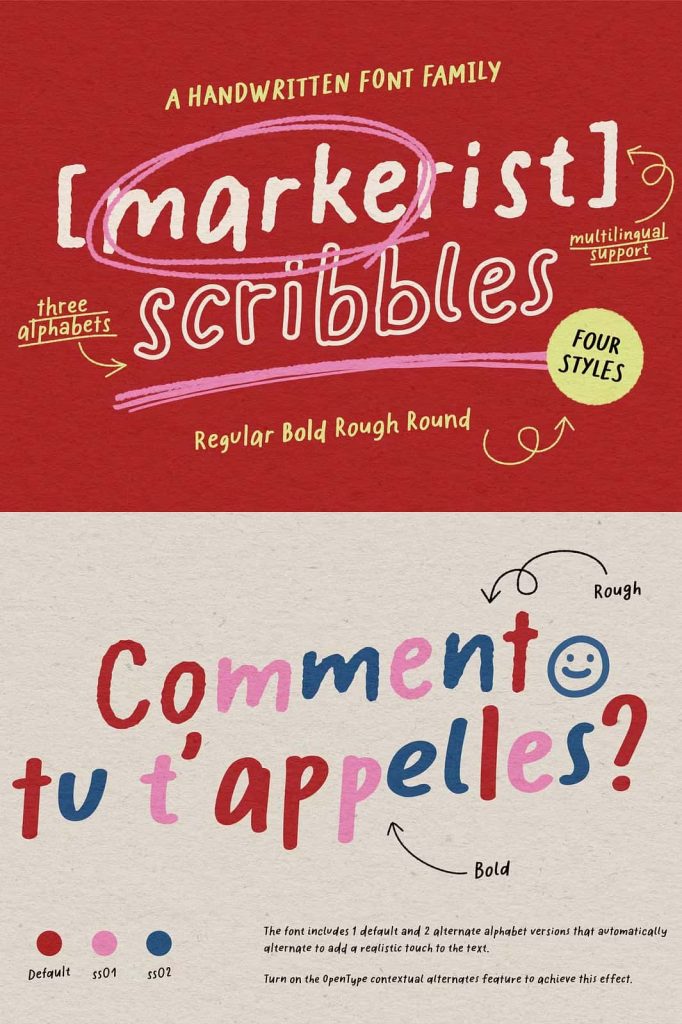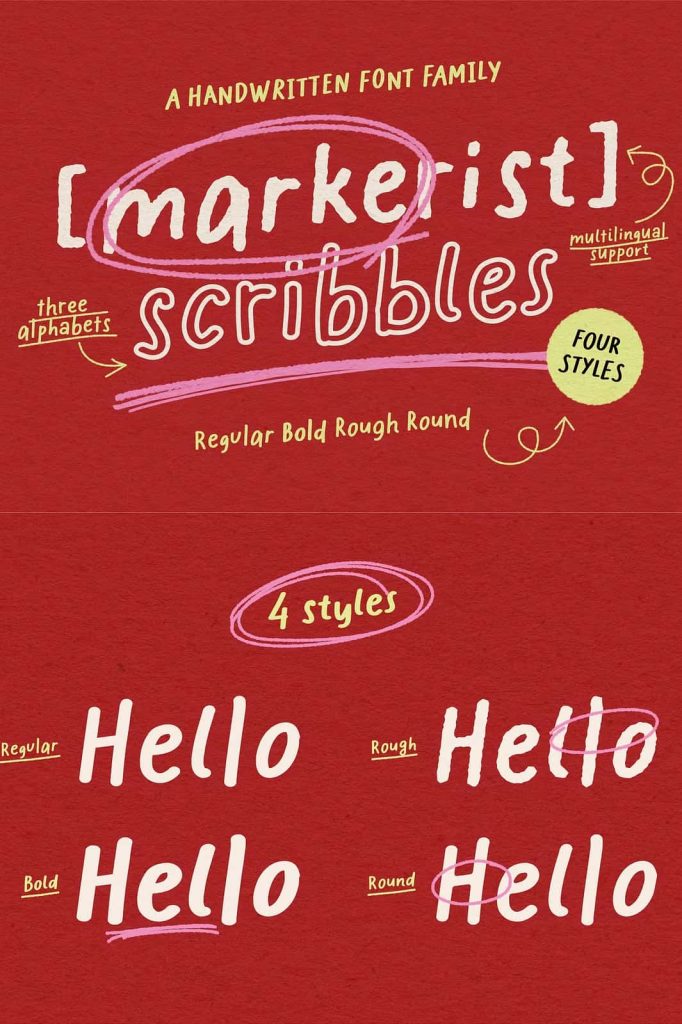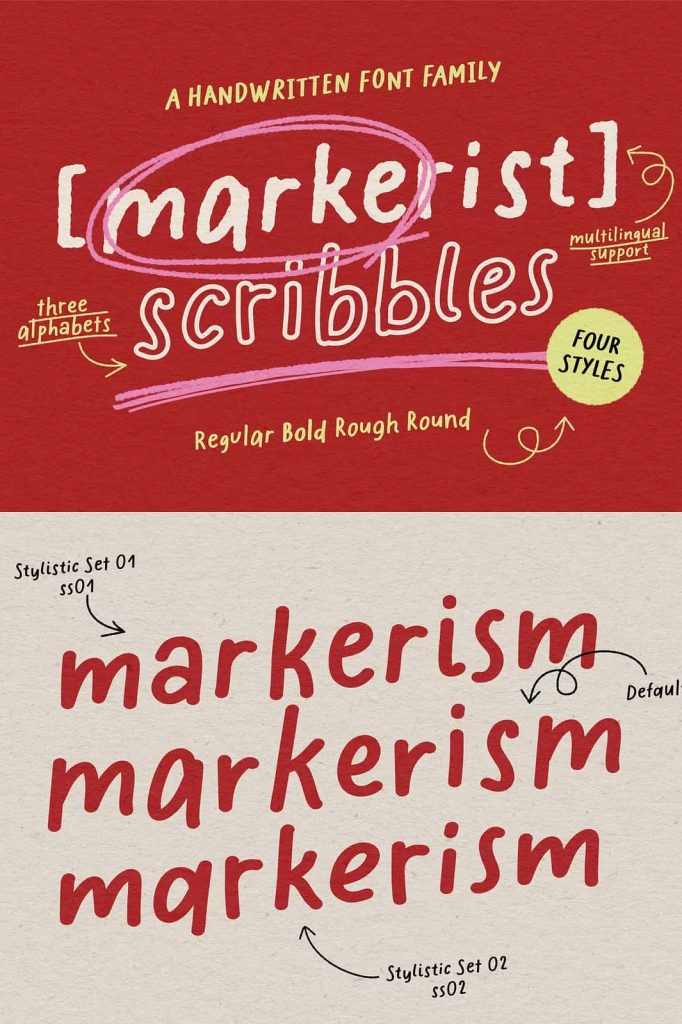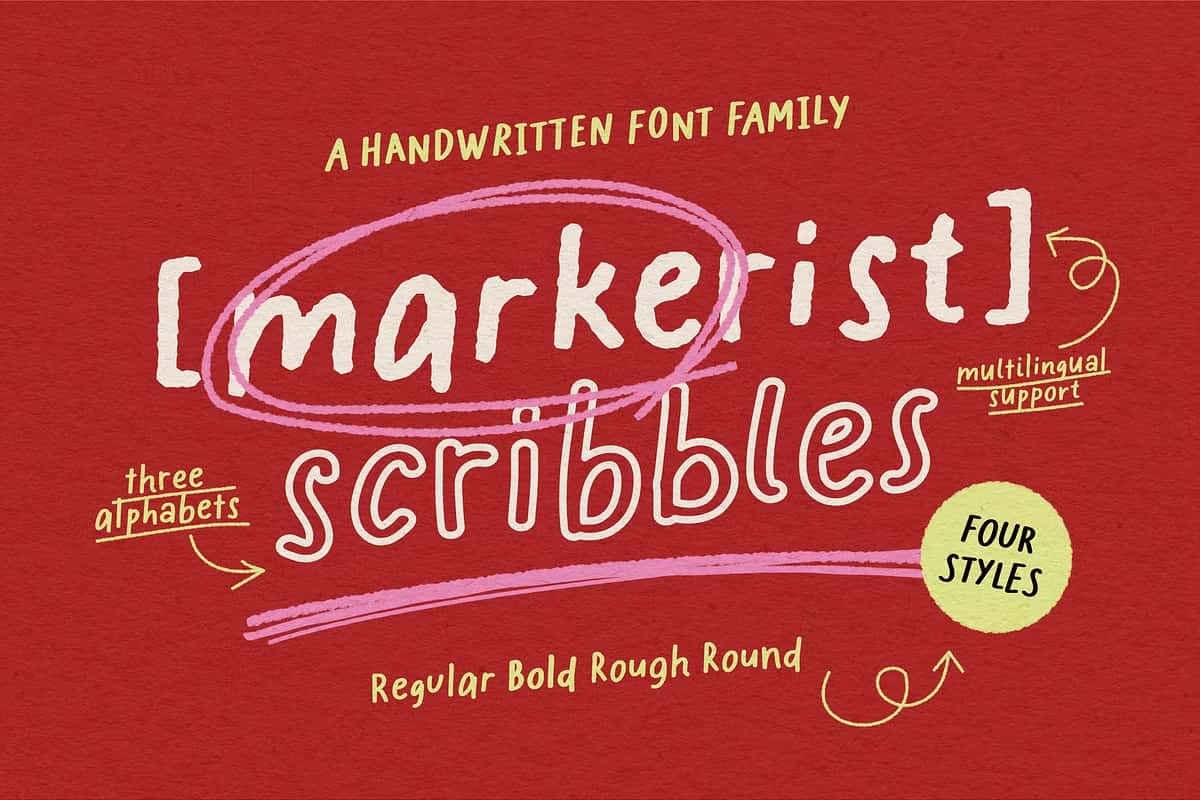
Markerist is a maker-style handwritten font family. This typeface comes with a full set of handmade alphabets, numbers, punctuation marks, and symbols